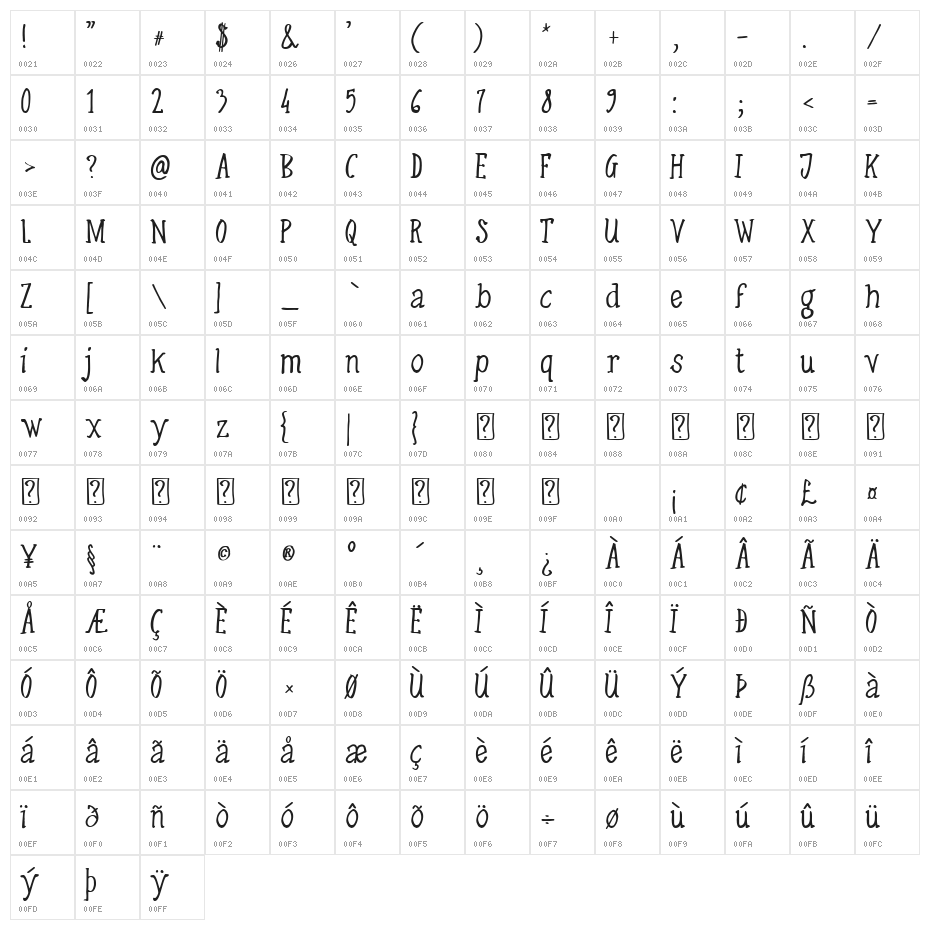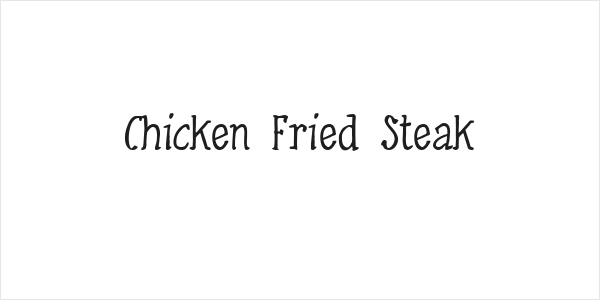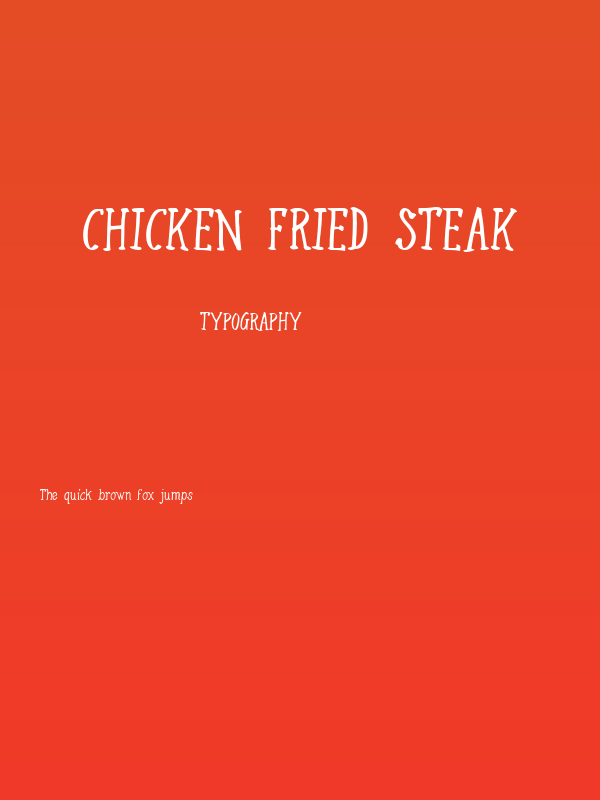
Chicken Fried Steak Font
Chicken Fried Steak Description
This font features a playful and whimsical style, characterized by its irregular and slightly wavy strokes. The letters have a hand-drawn appearance, giving them a casual and friendly vibe. The uppercase letters are bold and slightly condensed, while the lowercase letters maintain a consistent flow with a touch of quirkiness. Numbers and special characters follow the same playful design, making the font versatile for various creative applications. The overall look is informal yet stylish, perfect for projects that require a personal touch.
Use CaseHeadlines, Logos, Creative projects
Proposed ProjectsIdeal for greeting cards, children's books, playful branding, and creative posters.